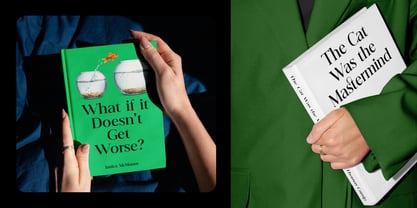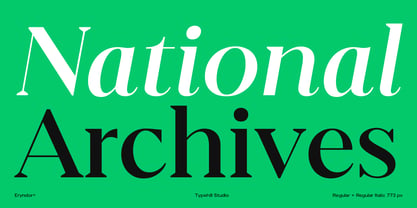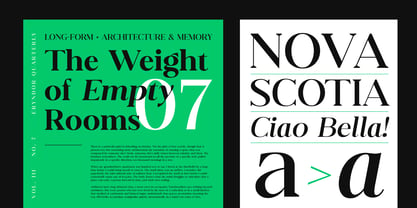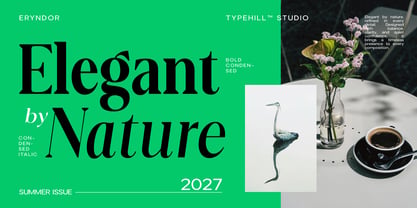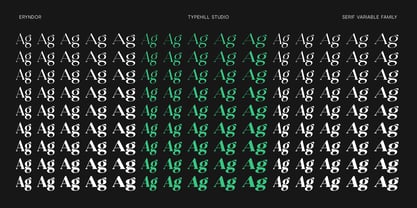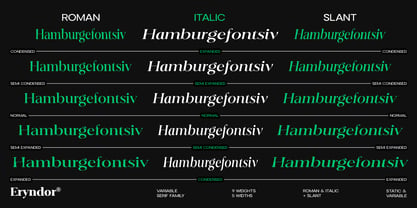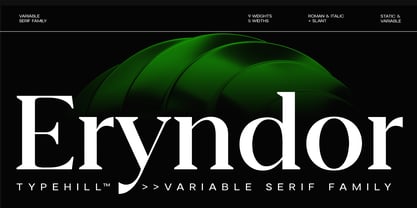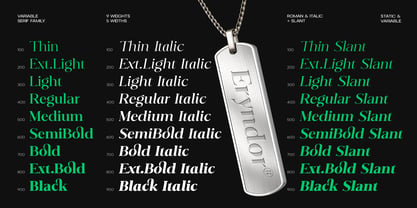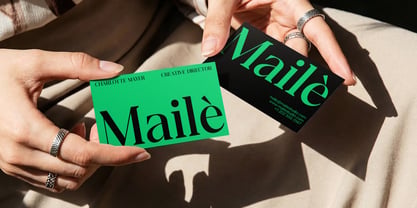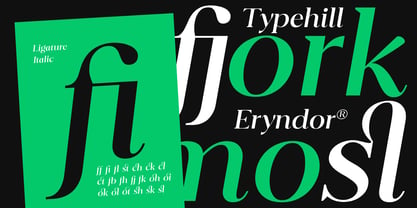
Eryndor
by Typehill Studio
The Eryndor Font Family was designed by Teuku Fahruddin and published by Typehill Studio. Eryndor contains 137 styles and family package options. More about this family
Introducing Eryndor — a sophisticated variable serif family crafted to deliver elegance, flexibility, and modern editorial character in one complete system. Designed with refined proportions, sharp contrast, and graceful curves, Eryndor blends classic serif aesthetics with a contemporary visual rhythm, making it ideal for premium branding, luxury packaging, fashion editorials, cinematic titles, publishing, and high-end digital experiences.
Built as a versatile variable typeface, Eryndor offers extensive creative freedom through multiple widths, weights, roman, italic, and slant styles. From delicate minimalist layouts to bold expressive headlines, the family adapts seamlessly across modern design environments while maintaining a strong and distinctive identity.
Its sculpted letterforms create a sophisticated reading texture with dramatic presence at large sizes and excellent clarity in professional typography systems. Whether used for branding, magazines, visual identities, posters, websites, or luxury product presentations, Eryndor delivers a timeless yet forward-looking serif experience.
Eryndor is designed for creators who seek expressive typography with precision, versatility, and a commanding visual voice.